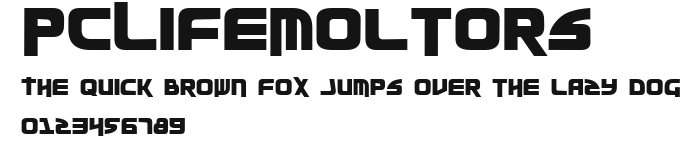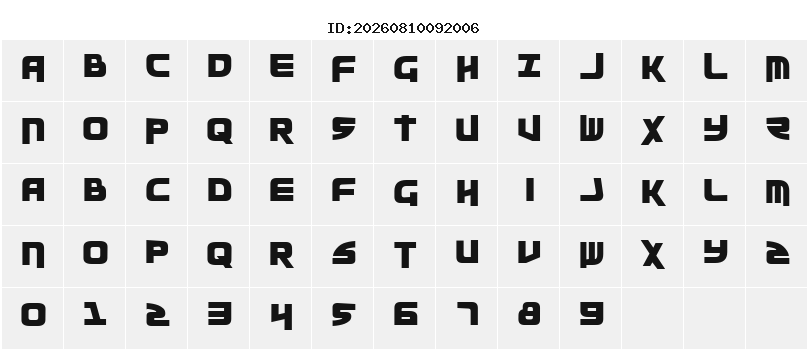
• Font Name: PCLifeMoltors
• Font Style: Black
• Font ID: Macromedia Fontographer 4.1 PCLifeMoltors Black
• Full Font Name: PCLifeMoltors Black
• Version: Macromedia Fontographer 4.1 30.11.2000
• PostScript Name: PCLifeMoltorsBlack
• Character Count: 125
About PCLifeMoltors.ttf
PCLifeMoltors.ttf is a modern, elegant sans-serif font designed for ultimate readability and visual harmony. Perfect for branding, headlines, web design, and print materials.